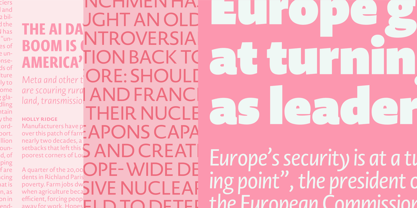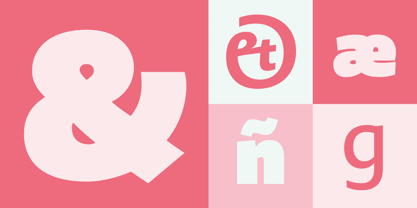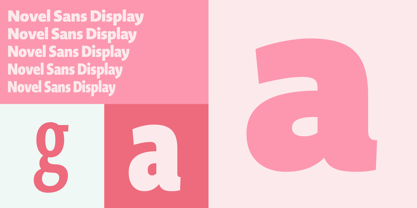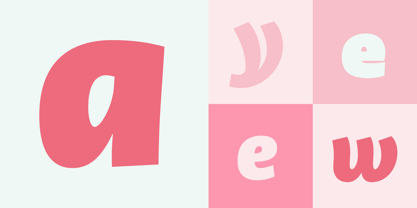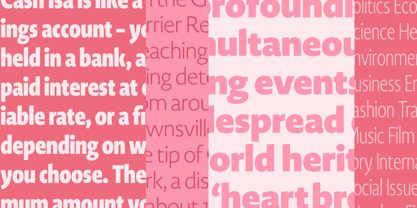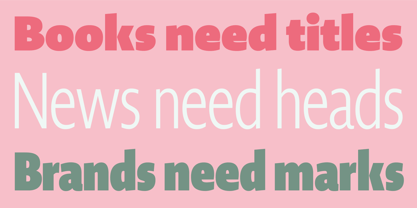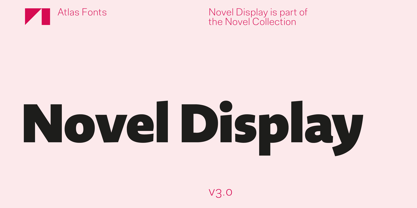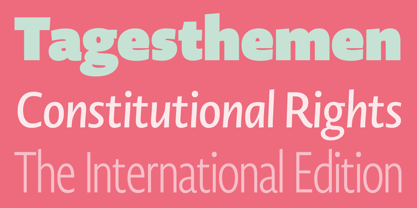
Novel™ Display
La familia tipográfica Novel Display fue diseñada por Christoph Dunst y publicada por Atlas Fonts. Novel Display contiene 50 estilos y opciones de paquete familiar.
Novel Display is the humanist sans serif typeface family for headlines and display sizes and the latest addition to the largely extended, award winning Novel Collection, containing Novel Pro, Novel Sans Hair Pro, Novel Sans Condensed Pro, Novel Mono Pro, Novel Sans Rounded Pro and Novel Sans Office Pro. All typeface families of the Novel Collection have a carefully attuned character design and a well balanced weight contrast. The fine gradation of 10 weights in combination with 4 widths enable designers to create fine display typography and combine the design with other members of the Novel Collection to reach highest quality in typography. Novel Display [788 glyphs] comes in 50 styles and contains an extra set of alternate glyphs, many ligatures, lining figures [proportionally spaced and monospaced], hanging figures [proportionally spaced and monospaced], positive and negative circled figures for upper and lower case, superior and inferior figures, fractions, extensive language support, arrows for uppercase and lowercase and many more OpenType™ features.